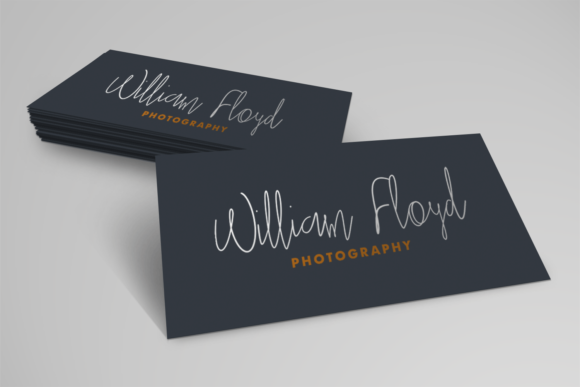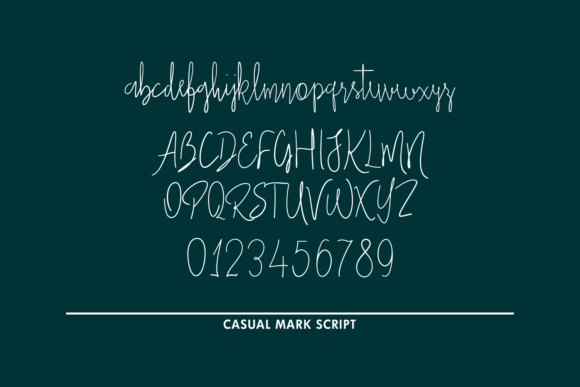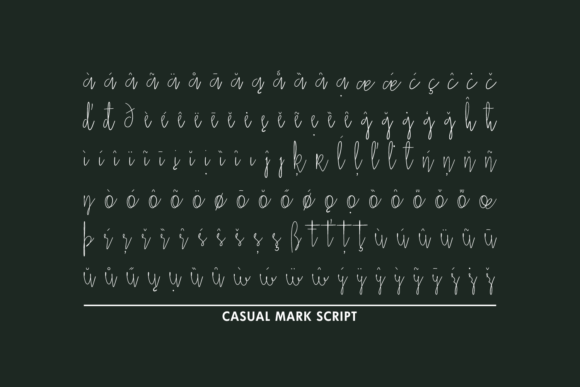
Casual Mark Script Font: Elevate Your Designs with a Personalized Touch
Are you tired of using the same old fonts in your designs? Look no further than Casual Mark Script Font, a stunning script typeface that adds a touch of elegance and personality to any project. With its abundance of ligatures and alternate lowercases, Casual Mark is the perfect choice for designers and crafters looking to create unique and eye-catching designs.
The Beauty of Script Fonts
Script fonts have long been a favorite among designers for their ability to add a touch of sophistication and flair to any design. From elegant wedding invitations to bold brand logos, script fonts can elevate any project and make it stand out from the crowd. And Casual Mark Script Font is no exception.
What Sets Casual Mark Apart
So, what makes Casual Mark Script Font so special? For starters, its beautiful script typeface is full of ligatures, which are special characters that combine two or more letters into a single glyph. This creates a flowing, connected look that is perfect for creating elegant and sophisticated designs. Additionally, Casual Mark features alternate lowercases, which allow you to mix and match different letterforms to create a truly unique look.
The Power of Ligatures and Alternates
Ligatures and alternate lowercases are two of the most powerful features of Casual Mark Script Font. Ligatures allow you to create a seamless flow of text, while alternate lowercases give you the flexibility to customize your text and make it truly one-of-a-kind. With Casual Mark, you can choose from a wide range of ligatures and alternates to create a look that is all your own.
Casual Mark Script Font is perfect for designers and crafters who want to add a personal touch to their work. Whether you’re creating a logo, branding materials, or digital products, Casual Mark is the perfect choice. Its elegant script typeface and abundance of ligatures and alternates make it ideal for a wide range of projects, from wedding invitations to business cards.
Tips for Using Casual Mark Script Font
Here are a few tips for getting the most out of Casual Mark Script Font:
- Use Casual Mark as a headline font to add a touch of elegance to your design.
- Pair Casual Mark with a sans-serif font for a bold and modern look.
- Experiment with different ligatures and alternates to create a unique look.
- Use Casual Mark for body text to add a touch of sophistication to your design.
Casual Mark Script Font is a beautiful and versatile script typeface that is perfect for designers and crafters looking to add a personal touch to their work. With its abundance of ligatures and alternate lowercases, Casual Mark is the perfect choice for creating unique and eye-catching designs. Whether you’re a seasoned designer or just starting out, Casual Mark is a must-have font that will elevate your designs and take them to the next level.
In conclusion, Casual Mark Script Font is a beautiful and elegant script typeface that is perfect for designers and crafters looking to add a touch of sophistication and personality to their work. With its abundance of ligatures and alternate lowercases, Casual Mark is the perfect choice for creating unique and eye-catching designs. So why wait? Download Casual Mark Script Font today and start elevating your designs to the next level!